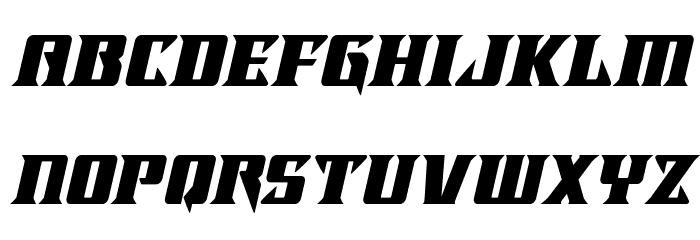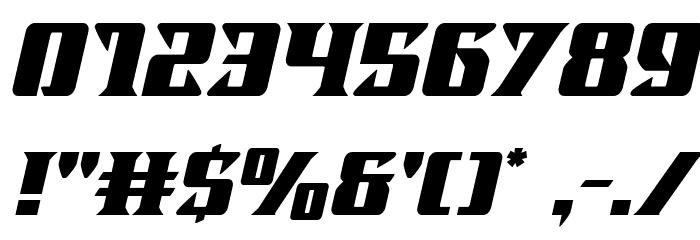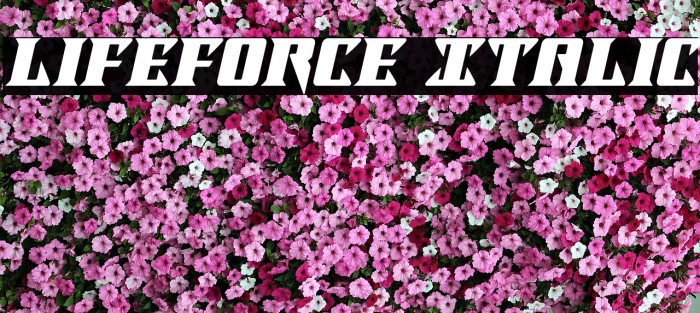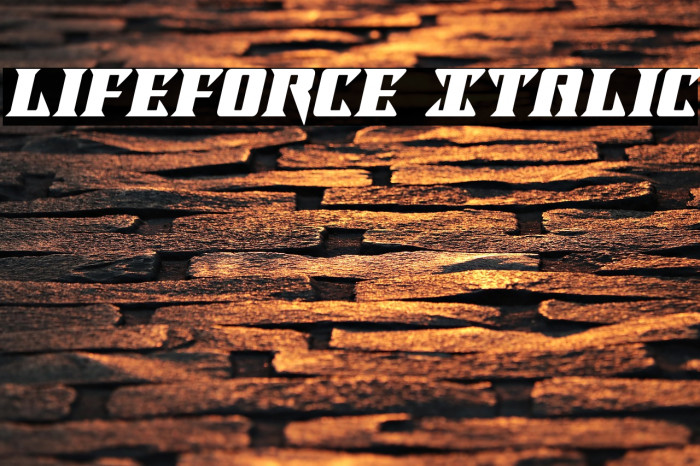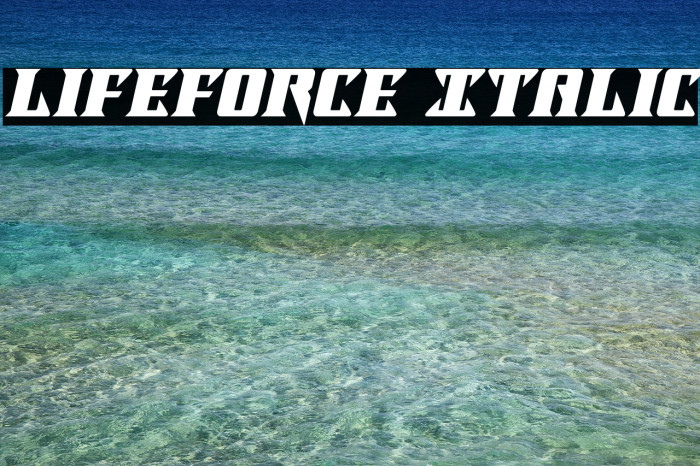
Lifeforce Italic Font
This font features a bold and dynamic style with sharp, angular edges and a strong italic slant. The characters are designed with a sense of movement and energy, making them stand out with a unique flair. The uppercase and lowercase letters maintain a consistent style, with the uppercase being slightly more pronounced. The numbers and special characters follow the same bold and angular design, ensuring a cohesive look across all elements. The overall appearance is modern and edgy, suitable for projects that require a striking and impactful visual presence.
A bold, angular, and italic font with a dynamic and modern style.
- Proposed Projects: Ideal for sports branding, action movie posters, video game titles, and dynamic event promotions.